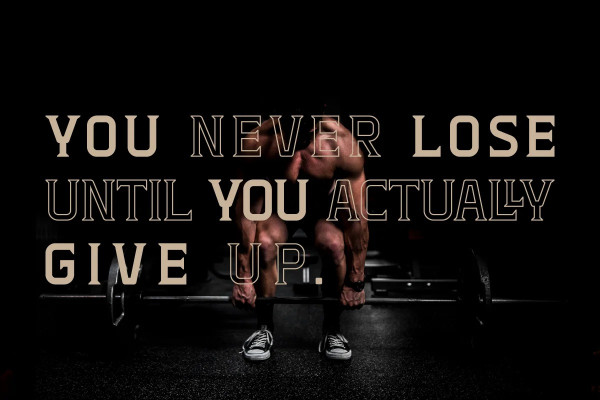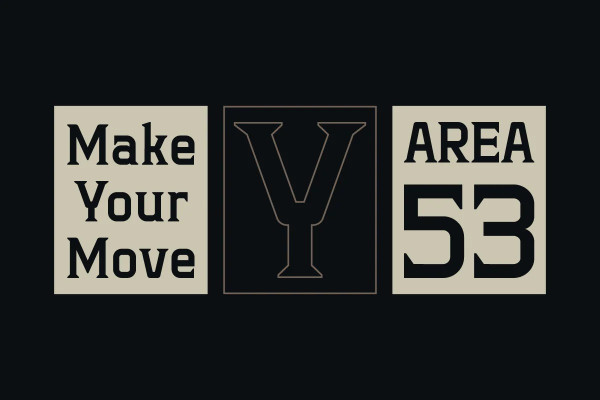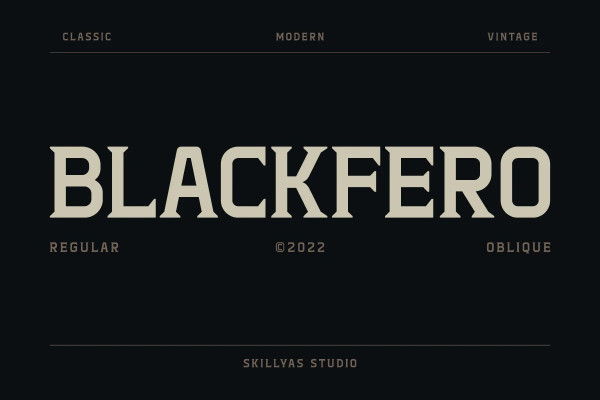
Blackfero Font
Blackfero Font is a Serif Font inspired by the masculine Greek art style. It perfectly represents vintage in a modern and minimalist way. Blackfero typeface will make your product design look standing and extraordinary.
Blackfero comes with 377 glyphs, including uppercase and lowercase letters, alternate characters, and special ligatures.
Blackfero Vintage Serif is perfect for branding projects, logos, Sports designs, social media posts, advertisements, product packaging, product designs, vintage label, photography, watermark, stationery, and any projects that need a strong taste.